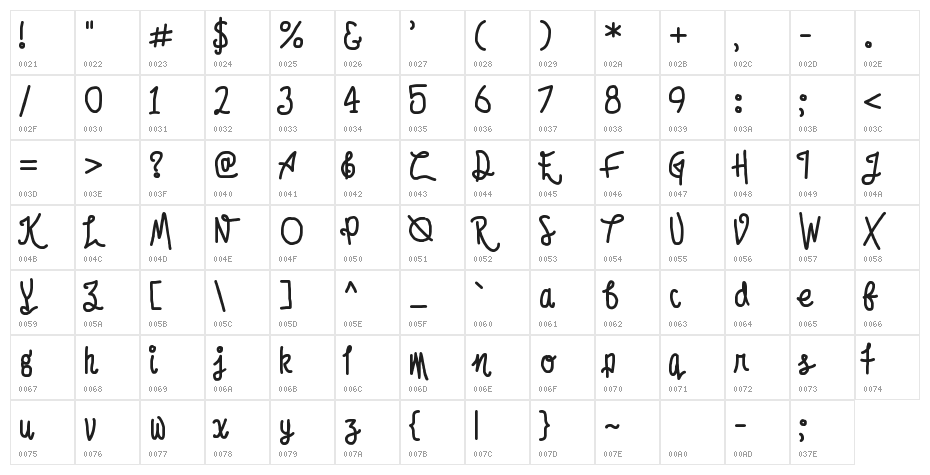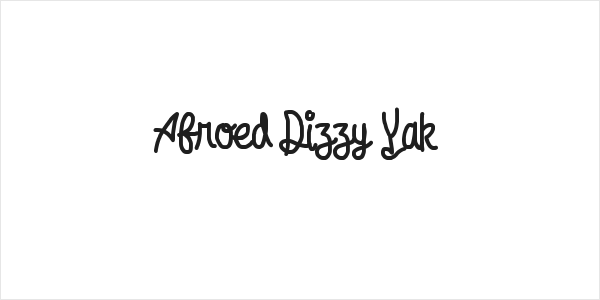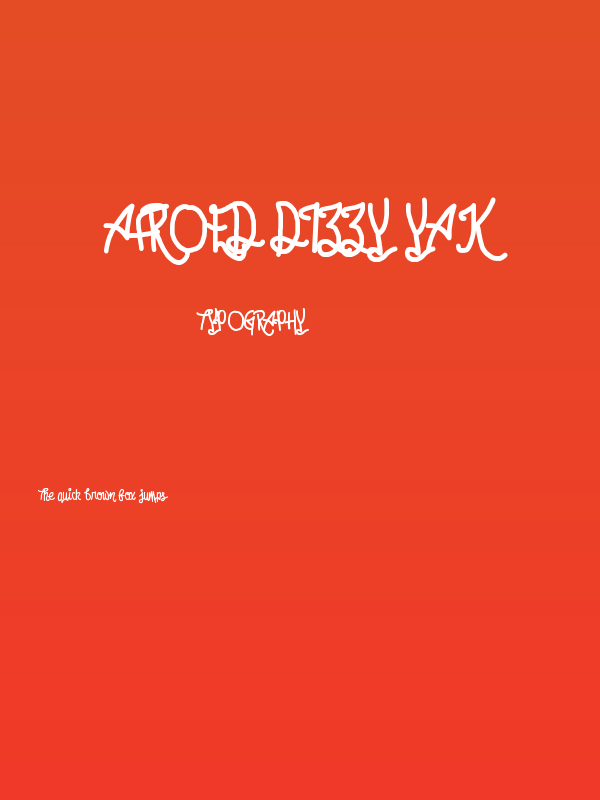
Afroed Dizzy Yak Font
Afroed Dizzy Yak Description
This font exudes a playful and energetic vibe with its bold, hand-drawn style. The characters are irregular and dynamic, giving a sense of movement and spontaneity. The uppercase and lowercase letters are uniquely crafted with a whimsical touch, making each letter stand out with its own personality. The numbers and special characters follow the same lively design, ensuring consistency throughout. This font is perfect for projects that require a fun and informal look, such as children's books, playful branding, or creative posters. Its distinctive style makes it an excellent choice for capturing attention and conveying a sense of joy and creativity.
| Proposed Projects | Children's books, playful branding, creative posters, informal invitations. |